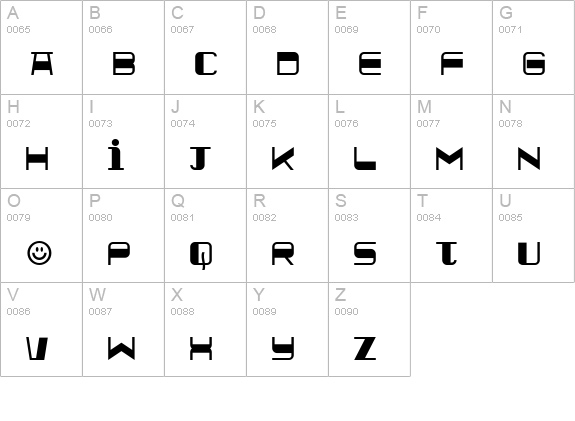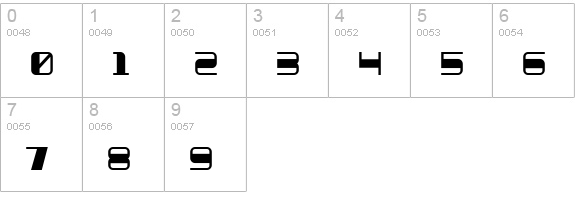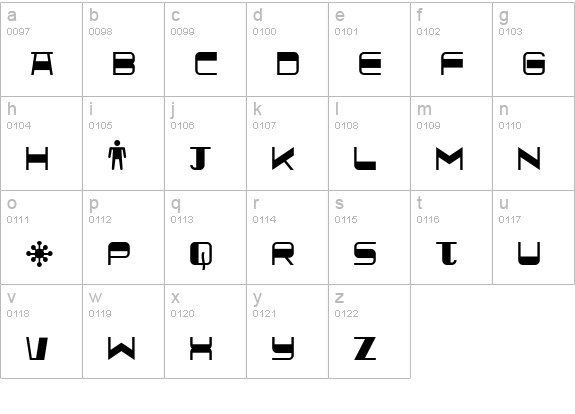
Quickometer is a modern and versatile font that is perfect for adding a touch of sophistication and elegance to any design project. With its clean lines and balanced proportions, this font effortlessly captures attention and creates a lasting impression. The Quickometer font is characterized by its sleek and streamlined letterforms, which exude a sense of professionalism and professionalism. Its crisp edges and smooth curves give it a contemporary feel, making it ideal for a wide range of applications, from logos and branding to advertisements and headlines. One of the standout features of Quickometer is that it is available for free download at FontsMarket.com. This means that designers and creatives can easily access this font and incorporate it into their projects without any cost. The availability of Quickometer for free further enhances its appeal and makes it an excellent choice for those on a budget or looking to experiment with different typefaces. Whether you're designing a website, creating a poster, or crafting a social media graphic, Quickometer has got you covered. Its versatility and adaptability ensure that it can seamlessly integrate into any design concept or style, adding a touch of sophistication and professionalism. So why wait? Head over to FontsMarket.com today and download Quickometer for free. Experience the elegance and impact that this font brings to your designs, and take your creations to the next level with its sleek and contemporary aesthetic.